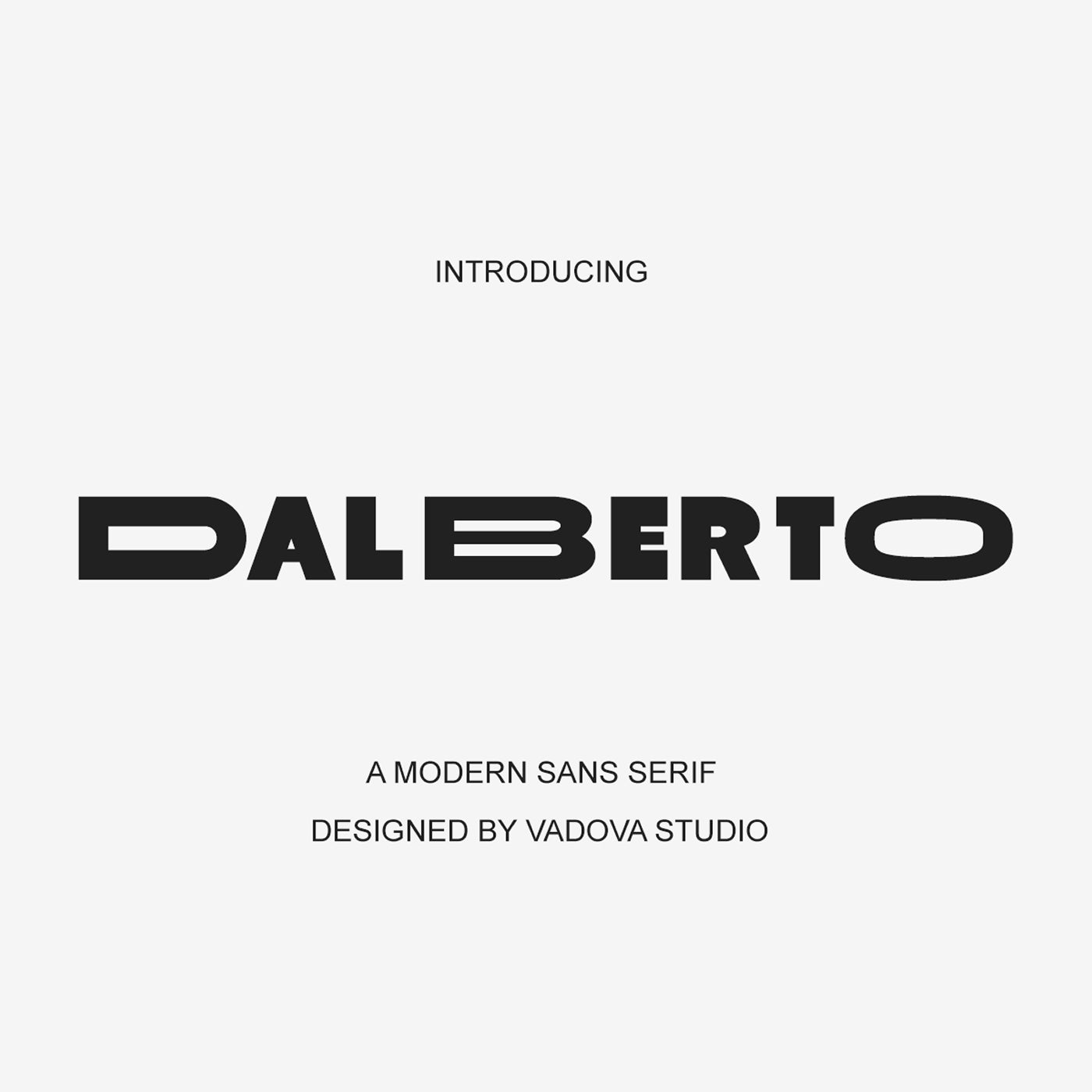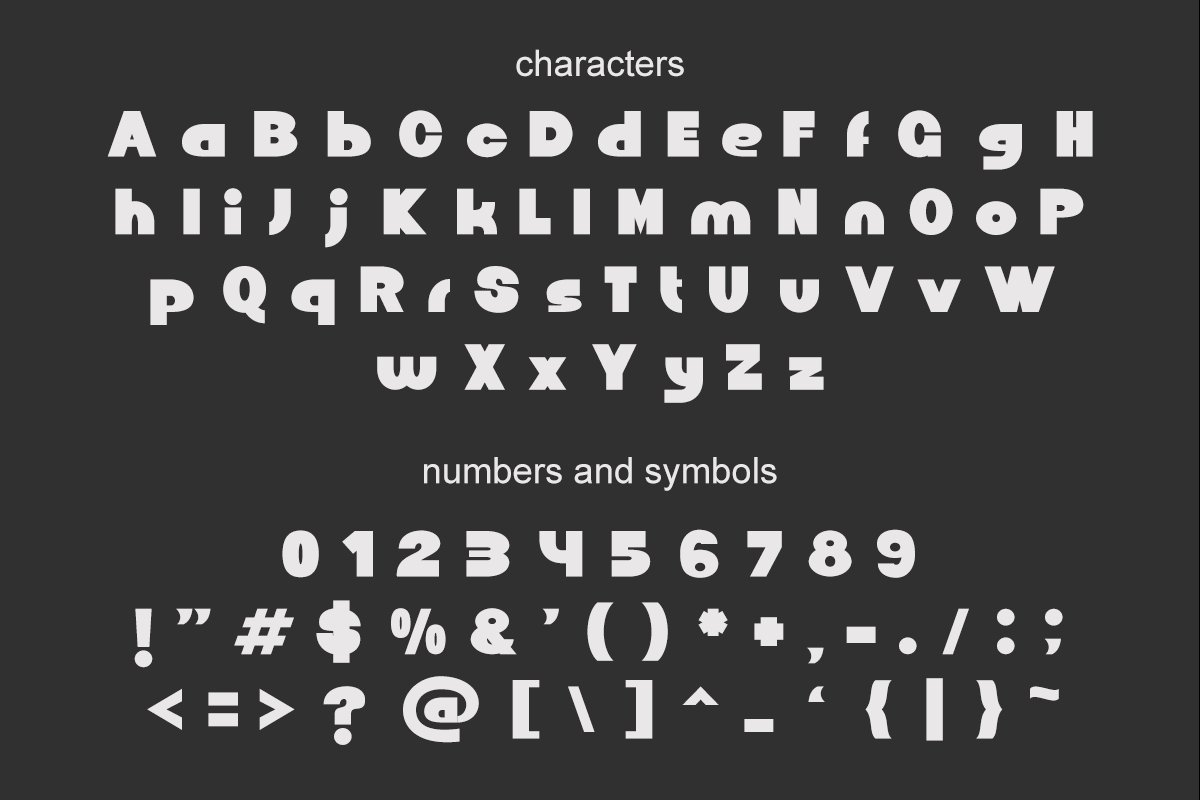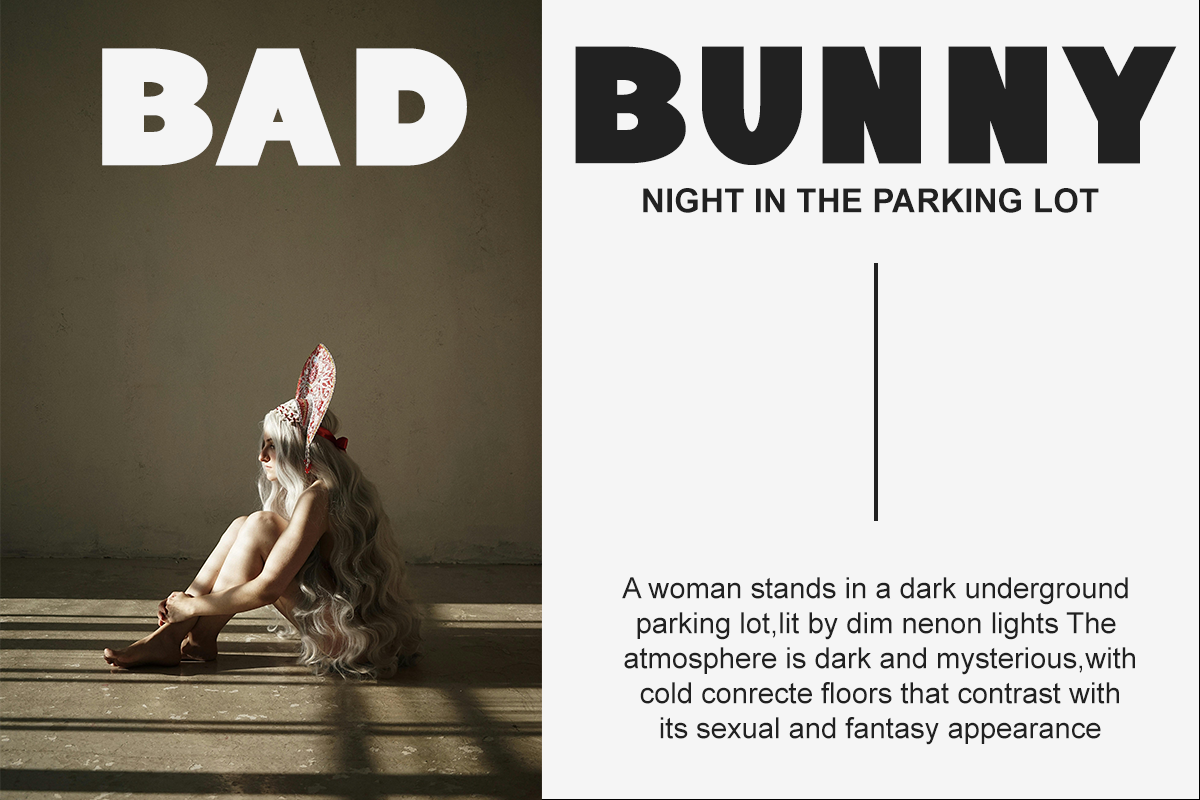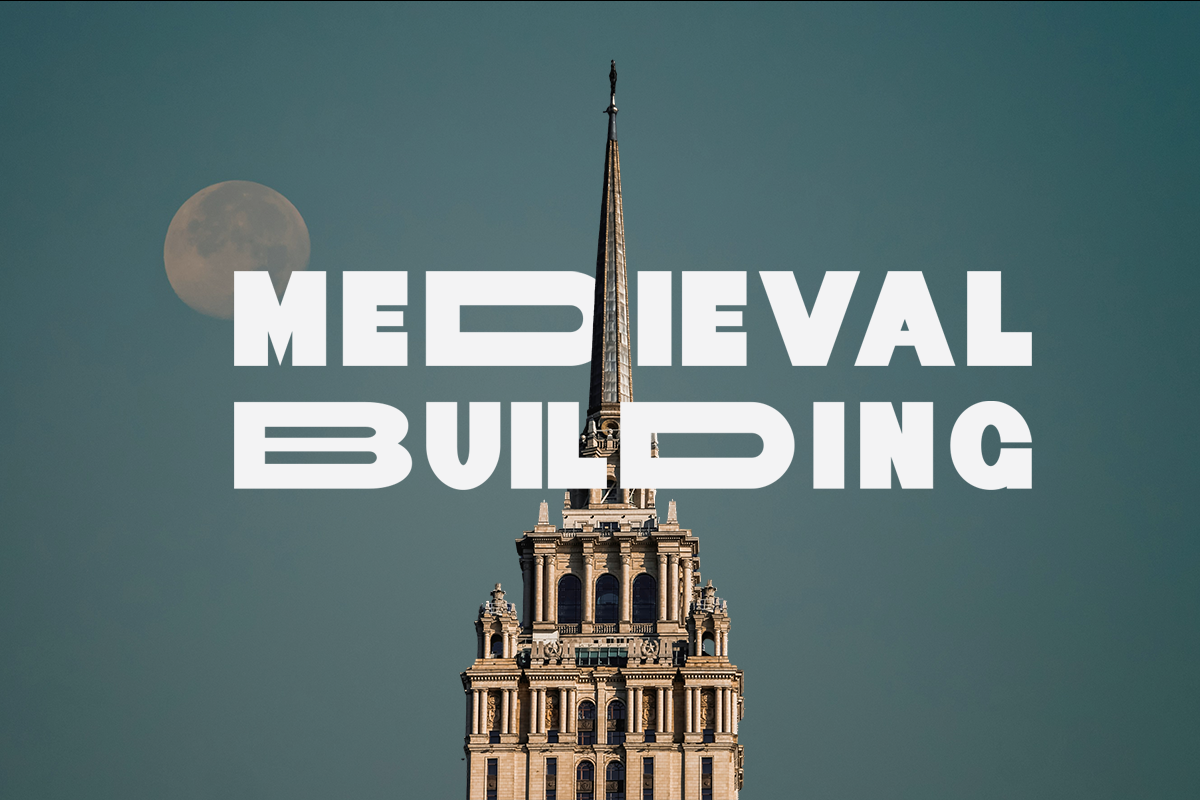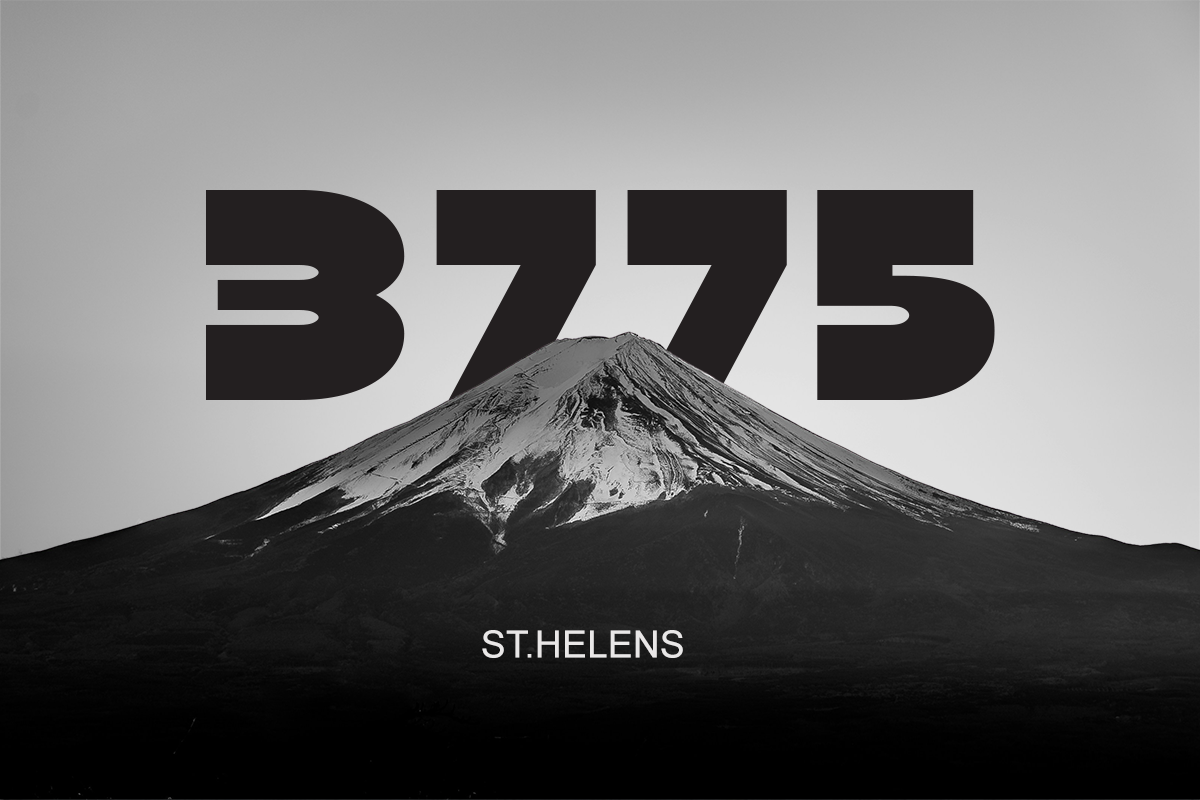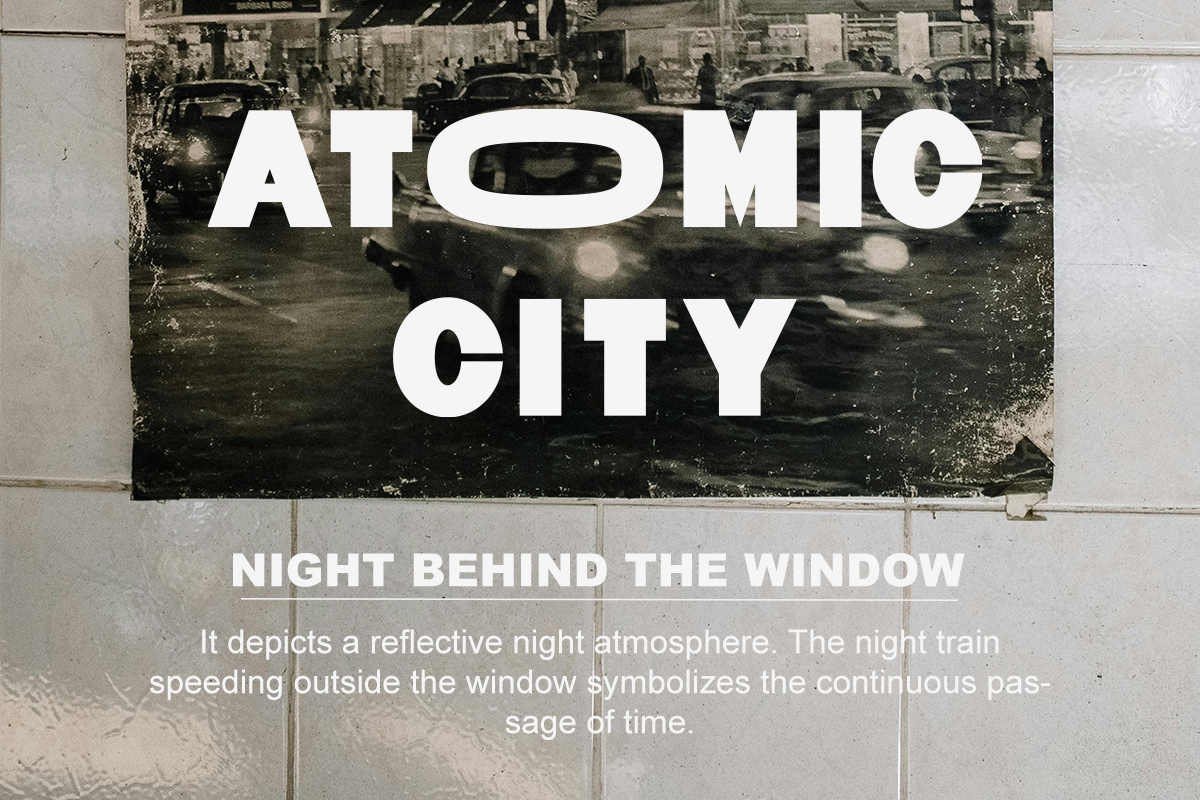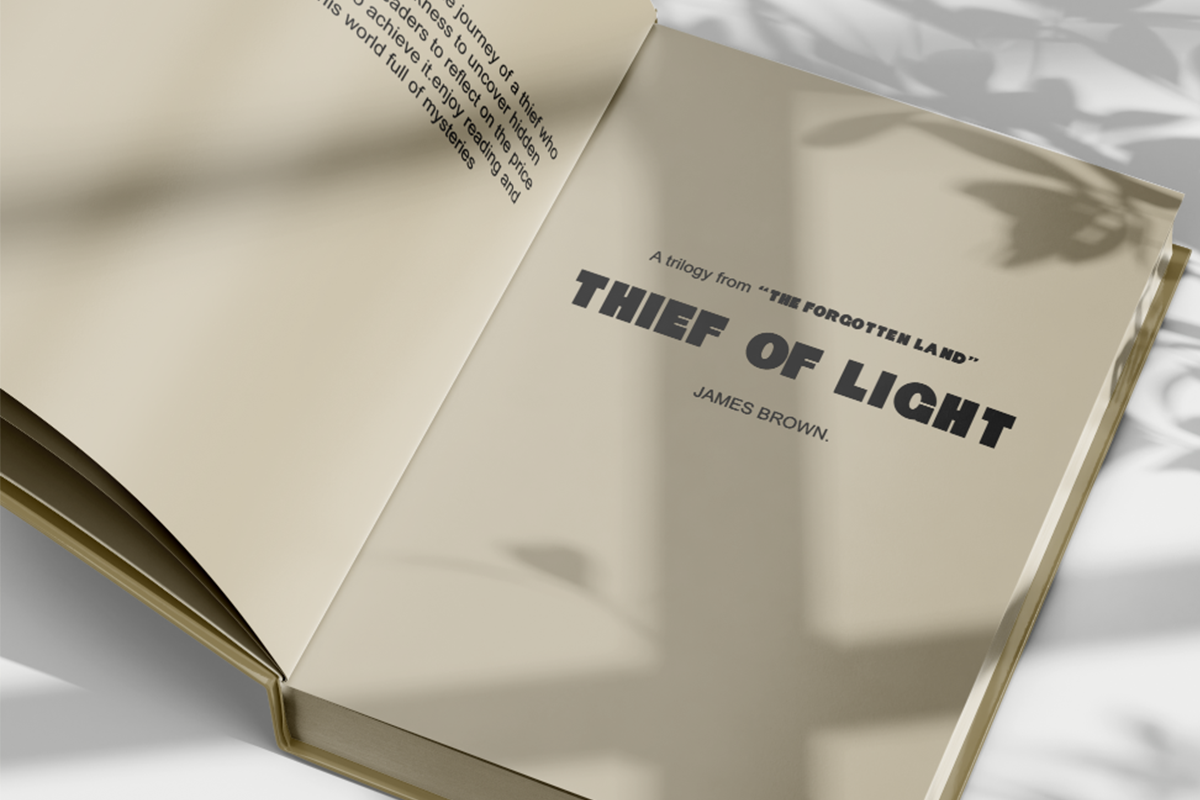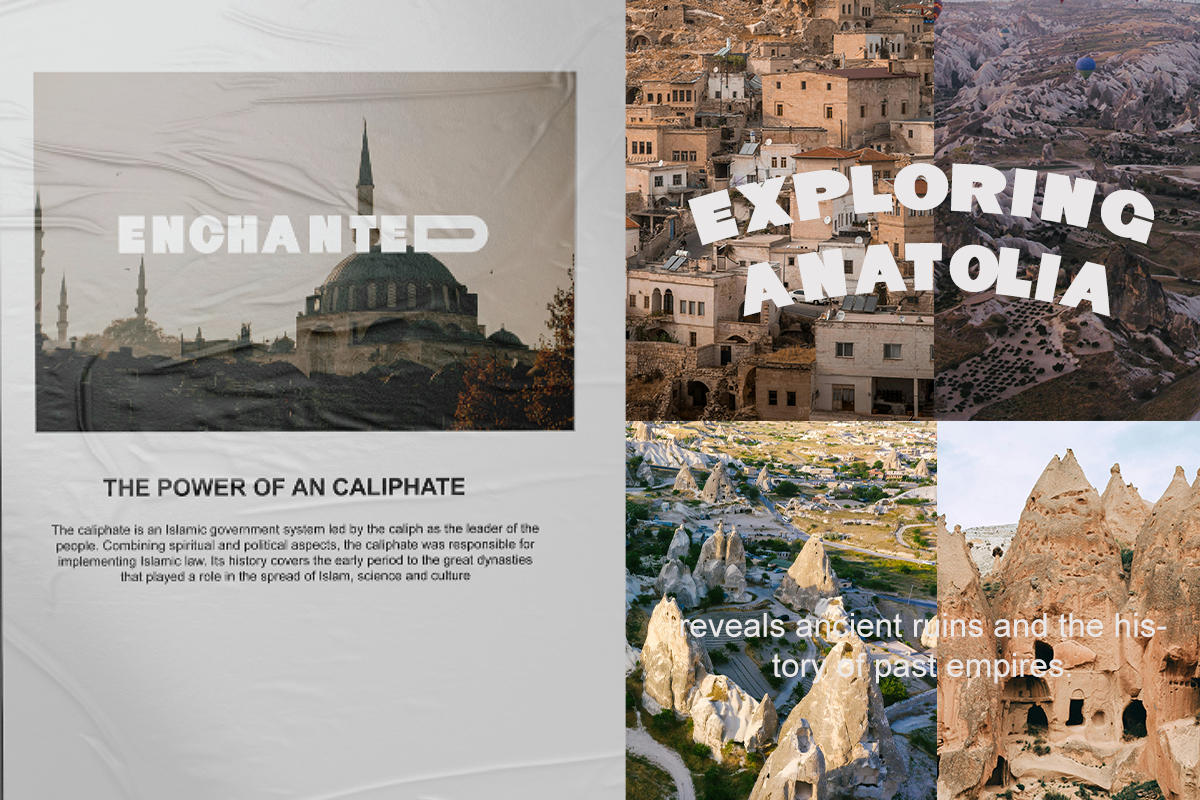
Dalberto Modern Sans Serif Font
Dalberto Modern Sans Serif Font is a modern sans serif display font with a bold geometric construction, designed for high-impact visuals. With its strong lines and unique character forms, this typeface blends automotive aggression and tech sophistication—perfect for racing themes, futuristic branding, and modern sport identities. Dalberto performs powerfully in all-caps settings and bold condensed compositions, making it ideal for logos, editorial headlines, posters, and minimalist tech interfaces. With multilingual support and clean execution, it’s built for premium, modern design.
Dalberto Modern Sans Serif Font is a bold geometric display typeface designed for high-impact visuals, featuring uppercase and lowercase characters, numerals, and punctuation. Available in TTF, OTF, and WOFF formats, it offers multilingual support and is suitable for modern design applications.